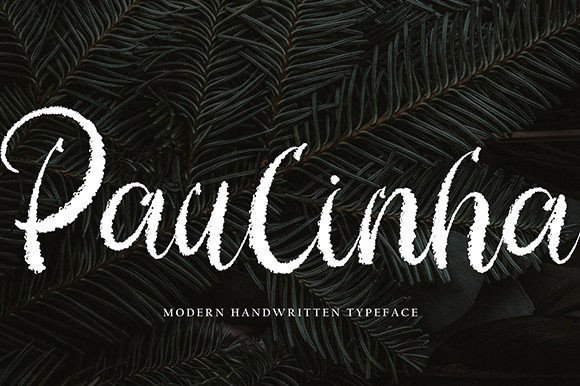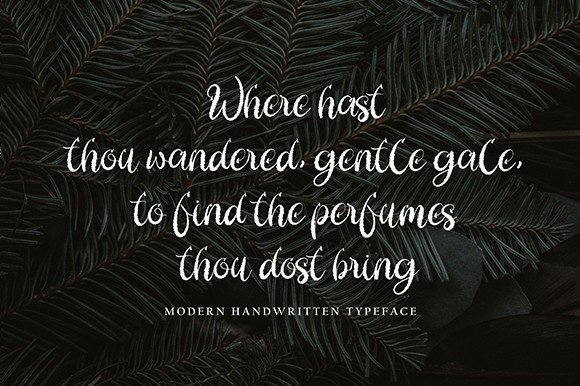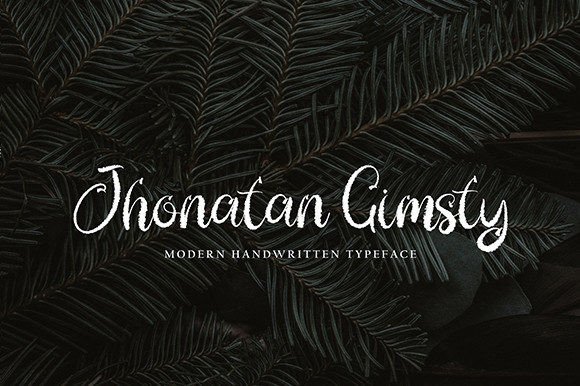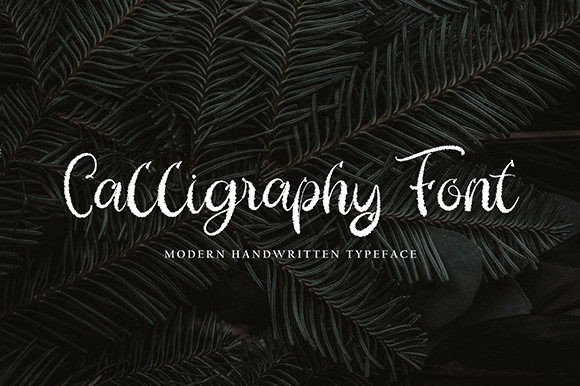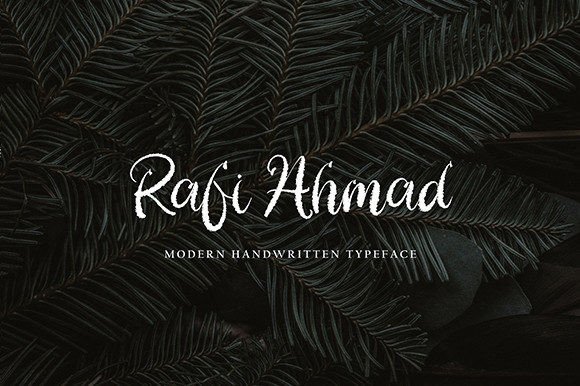
About Paulinha
Paulinha with new style, this font will perfect for many different project ex: quotes, logo, blog header, poster, banding, letter, invitation, stationery, etc…